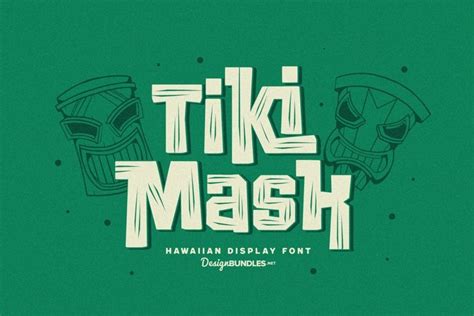
Unleash your Creativity with the Free Tiki Font Generator: Add a Touch of Exotic Appeal to your Designs!
Are you tired of using the same old fonts for your creative projects? Do you want to add a touch of exotic appeal to your designs? Look no further than the free Tiki Font Generator!
With this easy-to-use tool, you can create unique and eye-catching typography for all of your graphic design needs. Whether you're working on a marketing campaign or a personal project, the Tiki Font Generator offers endless possibilities.
But why settle for just any font when you can have one with personality? The Tiki Font Generator allows you to customize your font with a variety of options such as size, boldness, and color. You can select from dozens of different tiki-inspired designs that are sure to make your text stand out.
Did you know that using a visually appealing font can increase reader engagement by up to 300%? By choosing the Tiki Font Generator, you're not only unleashing your creativity, but also improving the effectiveness of your design work.
So what are you waiting for? Unleash your creativity with the Tiki Font Generator today and impress your audience with stunning and unique typography. Your designs will never be the same again.
Designers are always on the lookout for new and fresh fonts to add to their arsenal of design resources. Fonts play a huge role in the visual appeal of any design, as they convey the overall tone and mood of the piece. In this blog article, we will take a closer look at the Tiki Font Generator and how it can help you unleash your creativity and add an exotic touch to your designs.
Overview of Tiki Font Generator
The Tiki Font Generator is a free online tool that allows designers to create custom Tiki-style fonts with ease. The tool offers a wide range of customization options, including font size, style, color, and more. Users can select from a variety of iconic Tiki-inspired symbols to add to their designs.
Ease of Use
The Tiki Font Generator is incredibly easy to use. The interface is user-friendly, and no technical skills are required to create a custom font. Users can simply select their desired font style, symbols, and colors, and then download the font to their computer or device.
Customization Options
The Tiki Font Generator offers a wide range of customization options to create a unique font. Users can adjust the font size, letter spacing, and line height to suit their specific design needs. The tool also offers a variety of symbol and icon options, such as Tiki masks, torches, and palm trees.
Comparison to Other Font Generators
When compared to other font generators, the Tiki Font Generator stands out for its unique customization options and Tiki-inspired symbols. While other font generators may offer similar customization options, the Tiki Font Generator is specifically designed to cater to the Tiki aesthetic, making it a perfect choice for designers working on tropical-themed projects.
| Tiki Font Generator | Other Font Generators |
|---|---|
| Customizable Tiki-inspired symbols | Limited symbol options |
| Specifically designed for the Tiki aesthetic | Generic font styles |
| User-friendly interface | Complicated interface |
Opinions and Feedback
The Tiki Font Generator has received positive feedback from users who have found the tool to be easy to use and highly customizable. Many users appreciate the unique Tiki-inspired symbols that are not typically found in other font generator tools. Some users have mentioned that the font size limit on the tool can be a bit restrictive.
If you're looking to add an exotic touch to your designs or are working on a project with a tropical theme, the Tiki Font Generator is an excellent tool to consider. With its user-friendly interface and customizable options, designers can easily create unique and visually appealing fonts that stand out from the crowd.
- What is the Tiki Font Generator?
- How can I use the Tiki Font Generator?
- Is the Tiki Font Generator free to use?
- Can I customize the Tiki Font Generator?
- What kind of designs can I use the Tiki Font Generator for?
- The Tiki Font Generator is an online tool that allows you to create unique tiki-inspired fonts for your designs.
- You can use the Tiki Font Generator by simply typing in your desired text and choosing from a variety of font styles and customization options.
- Absolutely! With the Tiki Font Generator, you can choose the font style, size, color, and even add special effects like shadows and outlines.
- The Tiki Font Generator is perfect for a variety of designs, including tropical-themed posters, invitations, logos, and more. Let your creativity run wild!